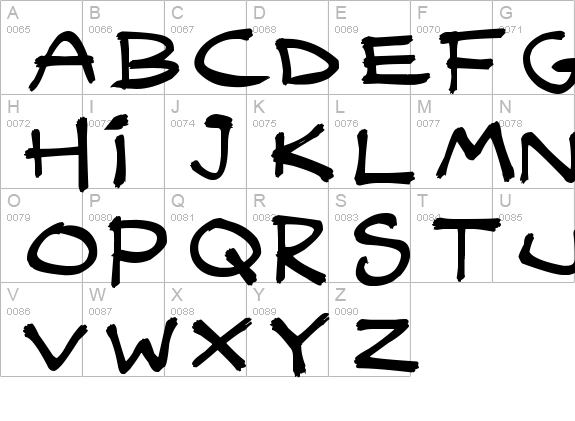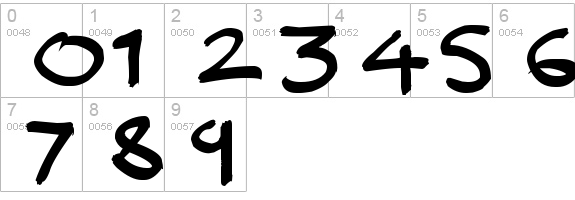
Quicky Brush is a free for personal use font in the Script > Brush category, designed by Darrell Flood. It has been downloaded 56 times and is available for Windows, Mac and Linux.
Quicky Brush font is a dynamic and energetic typeface that exudes a sense of spontaneity and creativity. With its flowing brush strokes and playful curves, this font is perfect for adding a touch of whimsy to your designs. Whether you're creating invitations, posters, or social media graphics, Quicky Brush will bring a fun and casual vibe to your project.